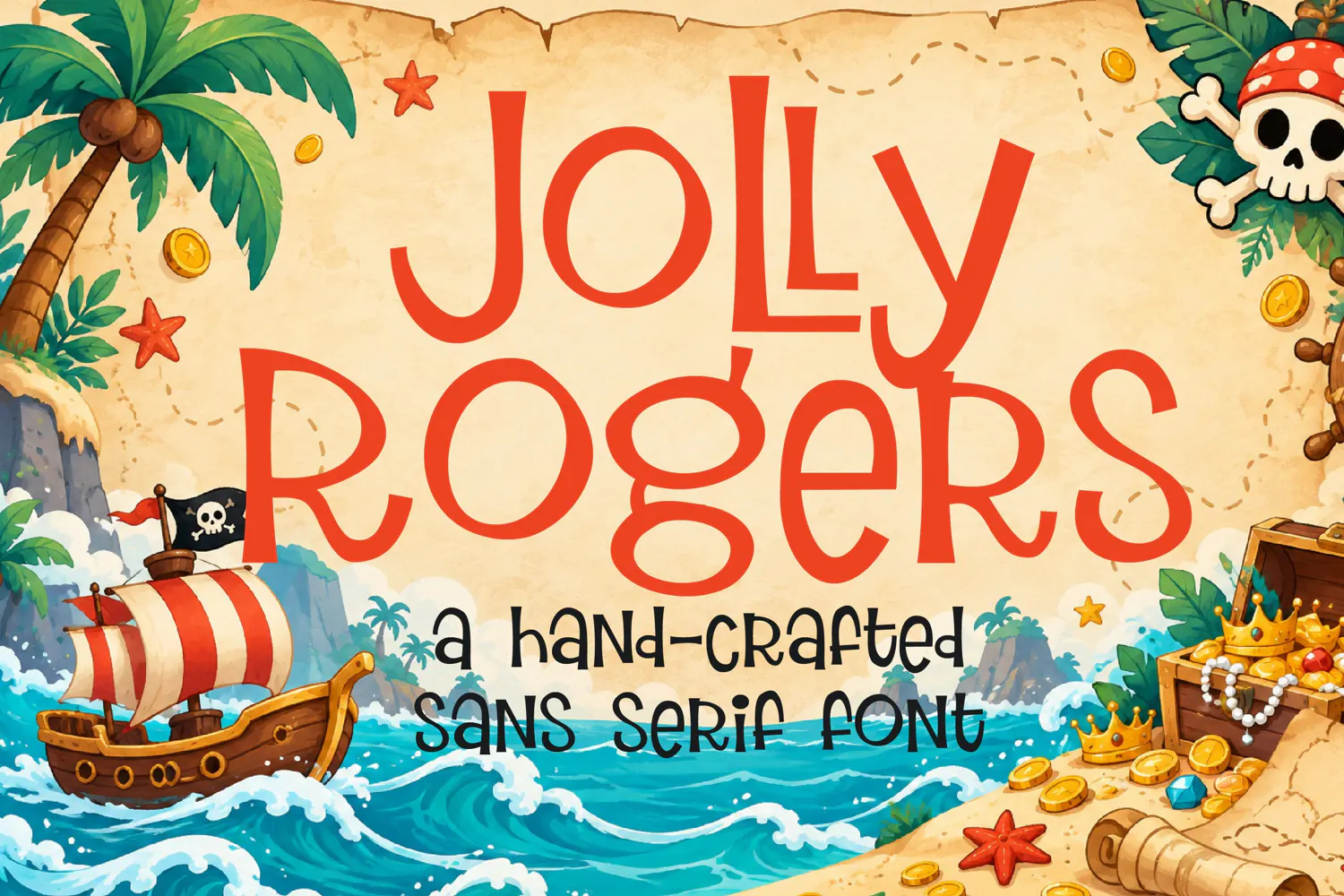
Jolly Rogers Handcrafted Sans Serif Font
Jolly Rogers is a playful handcrafted sans serif with uneven letter shapes and a lighthearted feel. Use it for pirate party invitations, treasure hunt clues, kids’ projects, posters, and adventurous headlines.